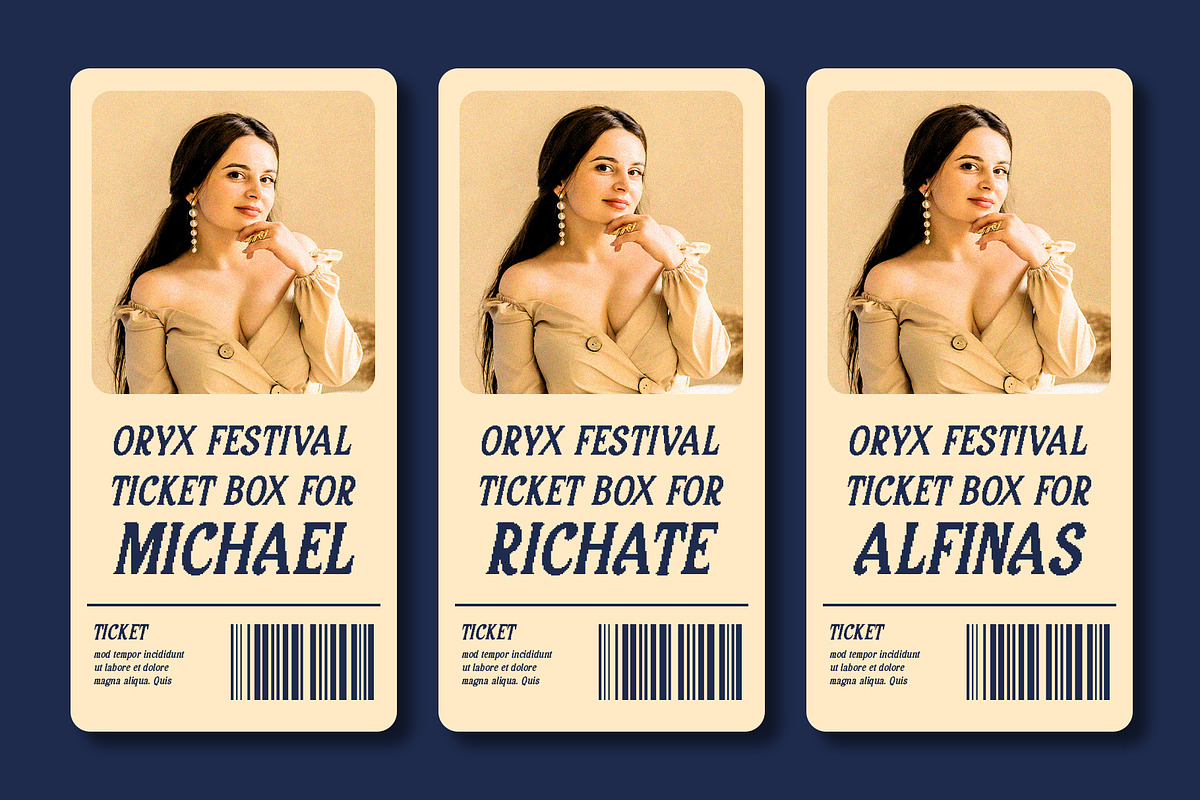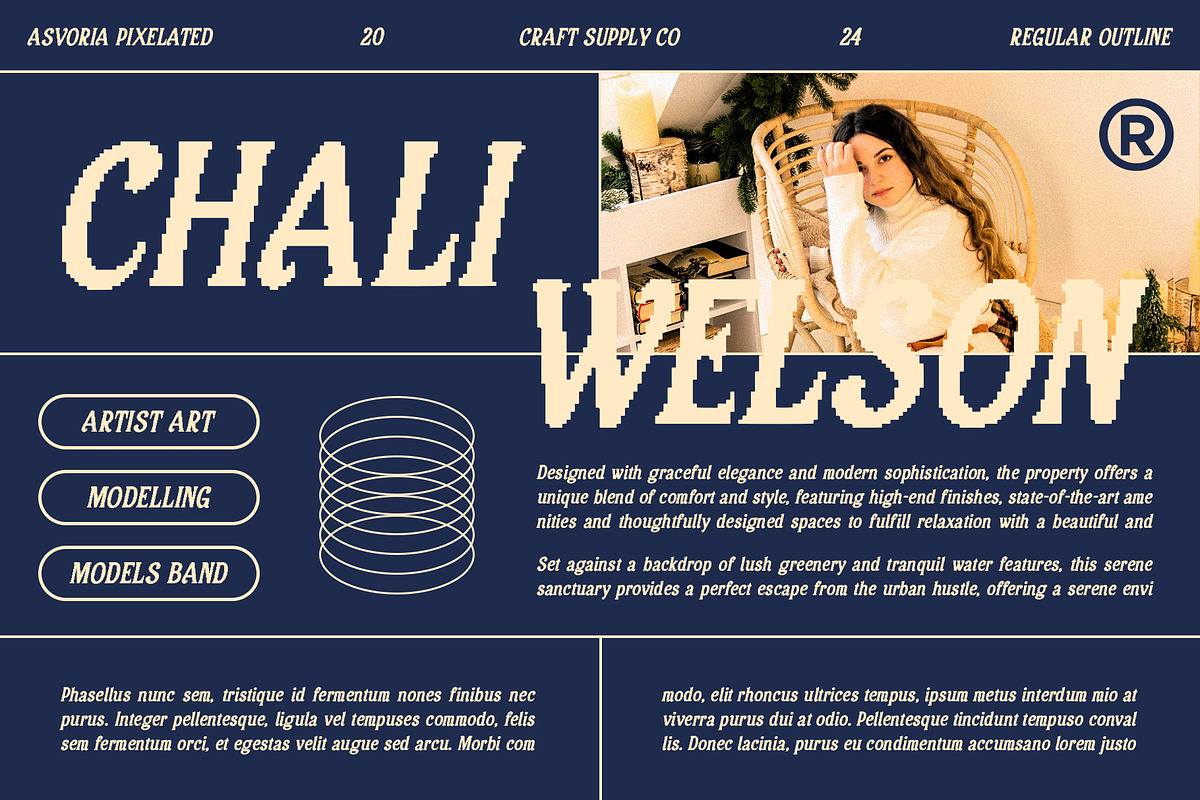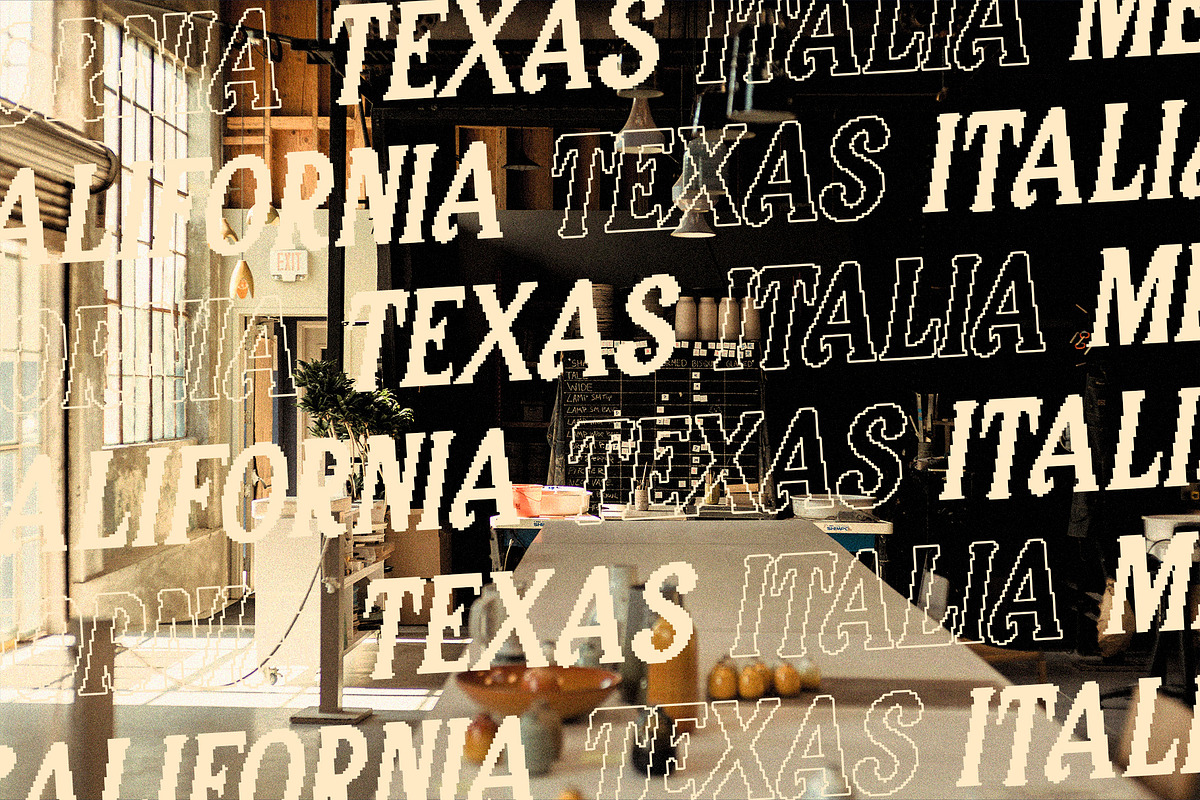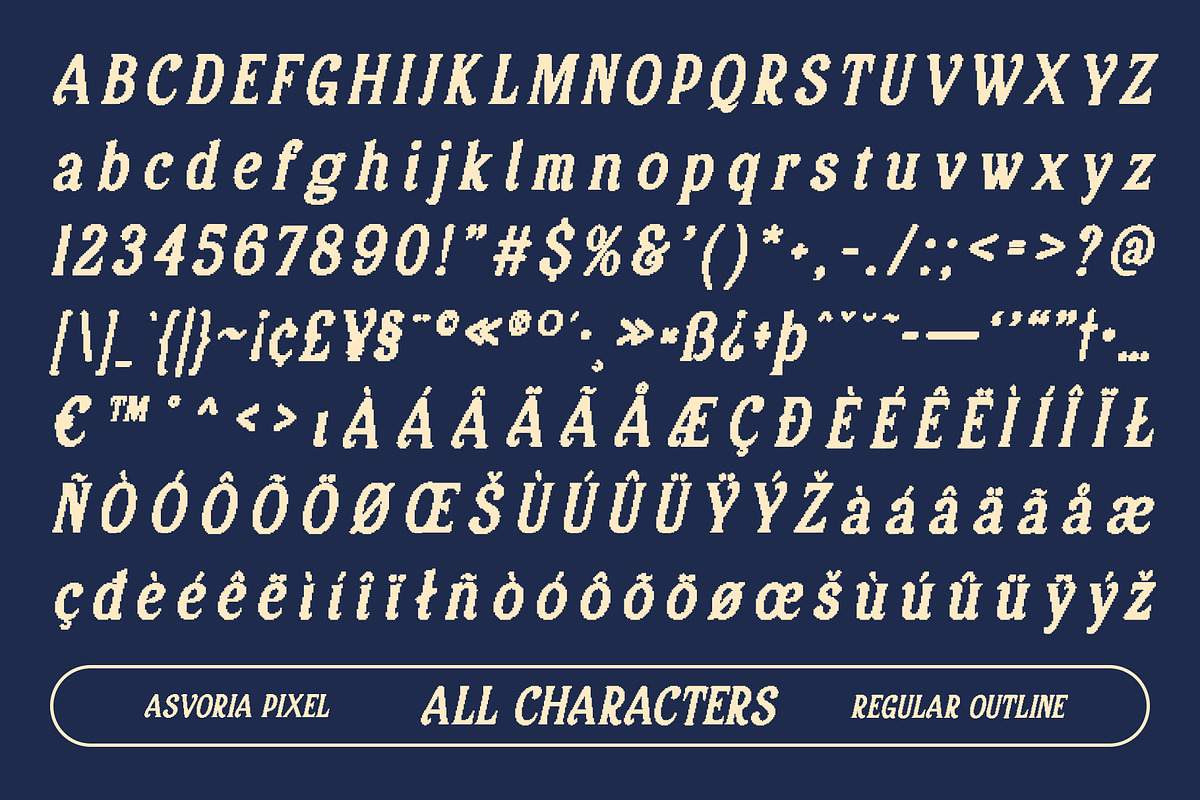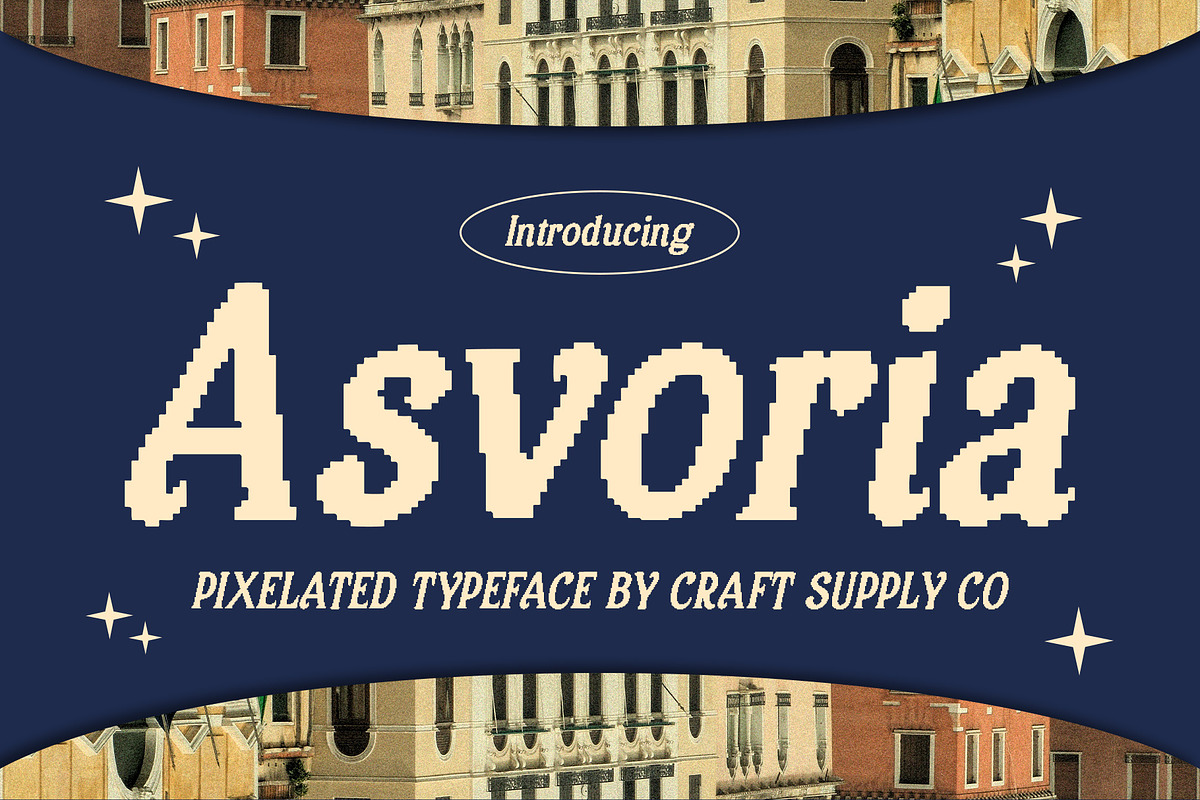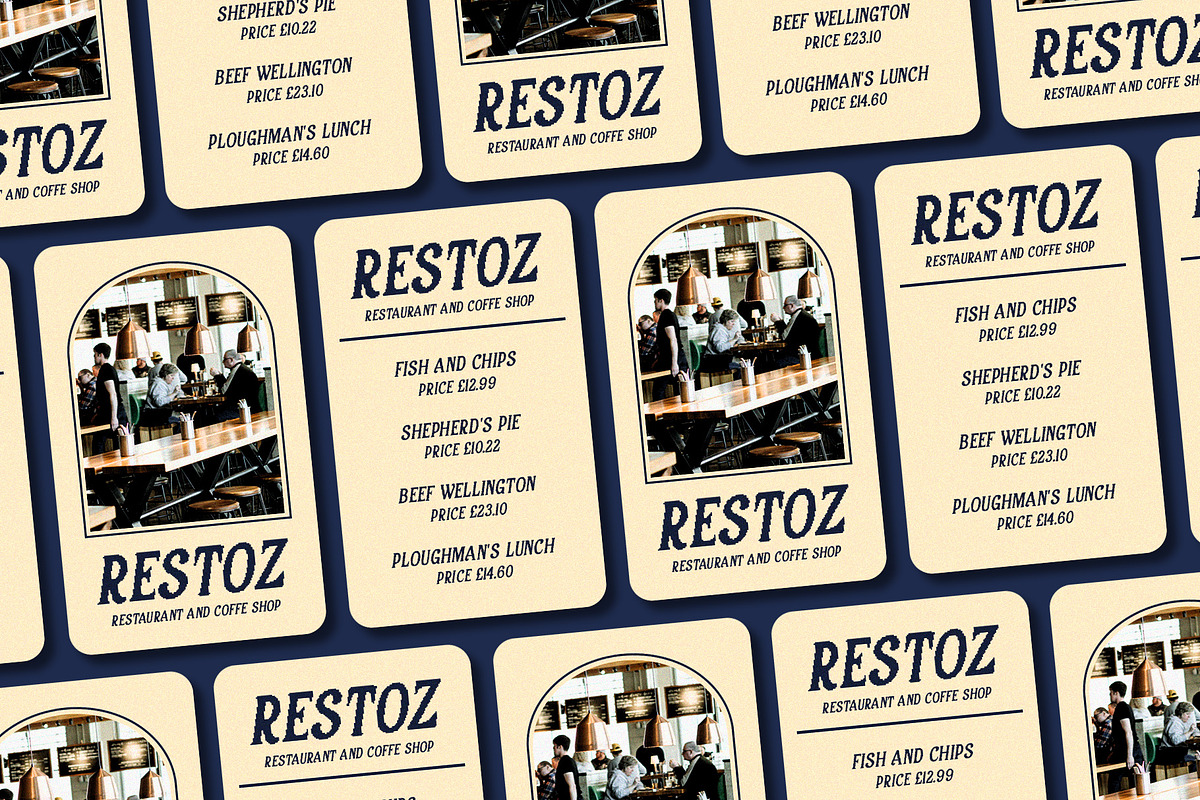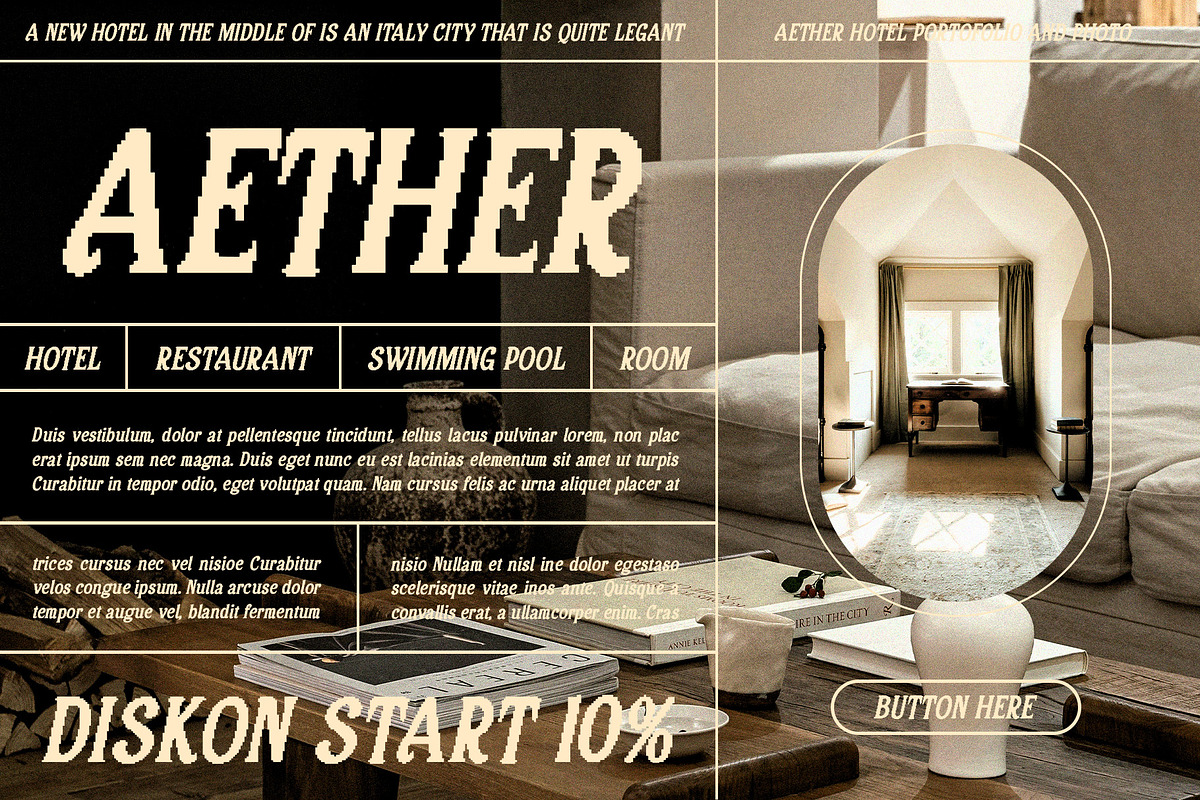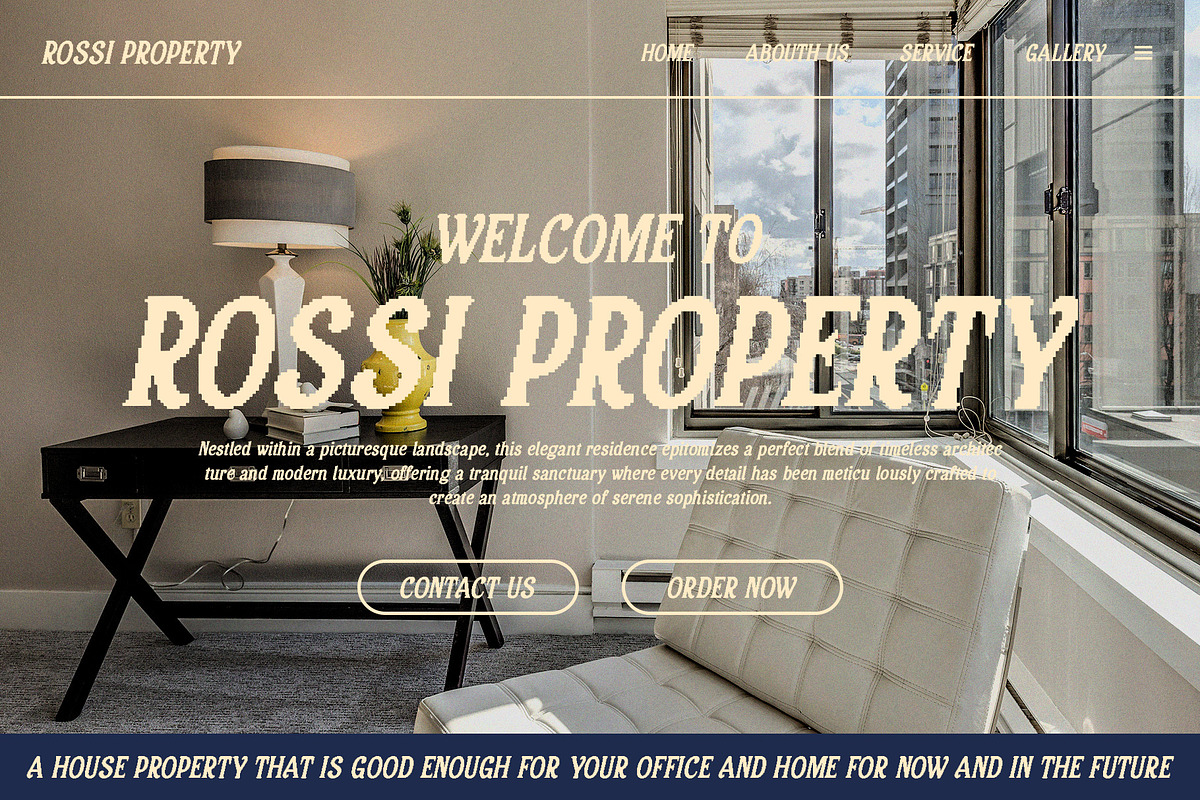
Asvoria Pixel
Asvoria Pixel: Elegant Serif Font with Pixelated Effect
Classic Elegance with a Modern Twist
Asvoria Pixel is a serif font that beautifully combines classic elegance with unique modern elements, featuring a pixelated effect that adds a touch of innovation. This font is designed to exude beauty and style, blending elegant serif lines with contemporary pixel details for an attractive and sophisticated appearance.
Stylish Serif Shapes
The beautiful and stylish shapes of Asvoria Pixel’s serif characters contribute to its timeless appeal. Each letter is meticulously crafted to maintain clarity and readability while enhancing the overall aesthetic with its pixelated effect, making it perfect for designs that prioritize beauty and style.
Innovative and Attractive Design
The pixelated effect in Asvoria Pixel introduces a modern twist to its classic serif aesthetics, ensuring that your designs stand out with an innovative and eye-catching appearance. This feature makes the font ideal for projects that seek to captivate attention and convey a sense of elegance and modernity.
Ideal for Beauty and Style-focused Designs
Whether used for editorial layouts, branding, or luxury packaging, Asvoria Pixel excels in projects that emphasize beauty and style. Its elegant yet modern impression makes it a versatile choice for creating memorable and sophisticated visual experiences.